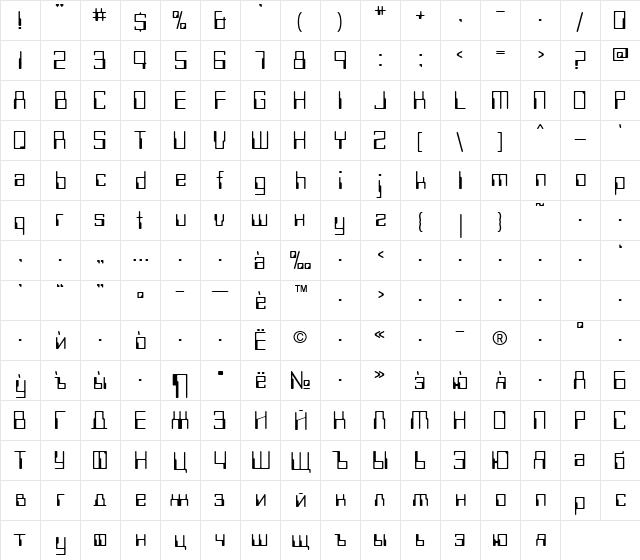
SpaceCyr Regular
Design Context for SpaceCyr Typeface
SpaceCyr is a composed and adaptable typeface that performs quietly and consistently across a wide range of design contexts.